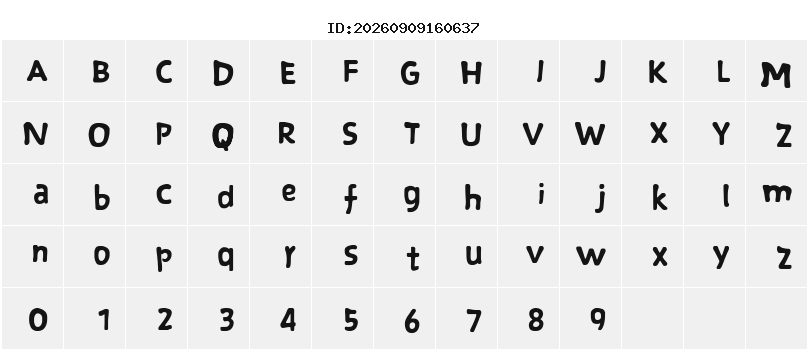
字潮真真隶 Preview
• Font Name: 字潮真真隶
• Full Font Name: 字潮真真隶
• Designer: 潍坊字潮文化传媒有限公司
About 字潮真真隶.TTF
字潮真真隶.TTF is a modern, elegant sans-serif font designed for ultimate readability and visual harmony. Perfect for branding, headlines, web design, and print materials.